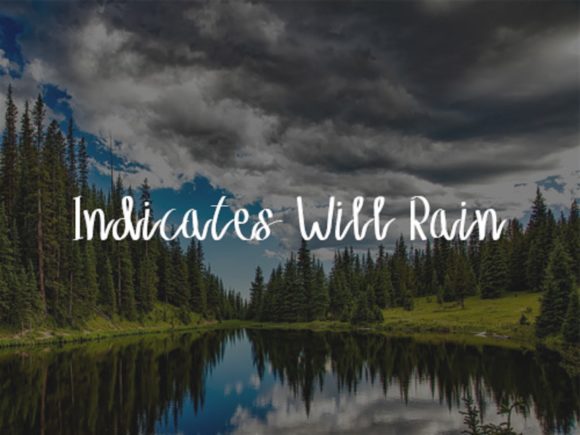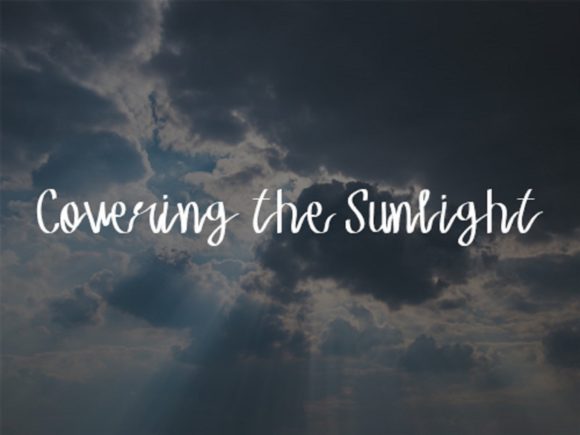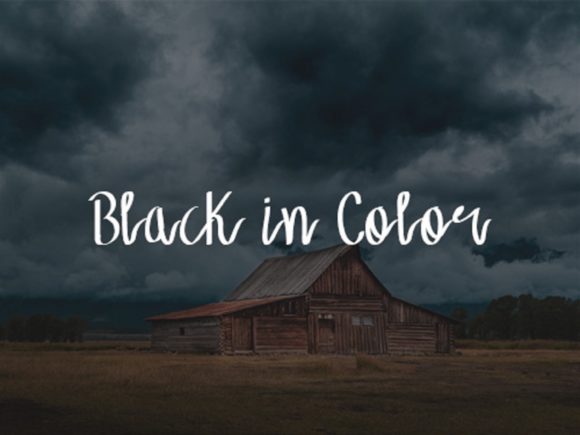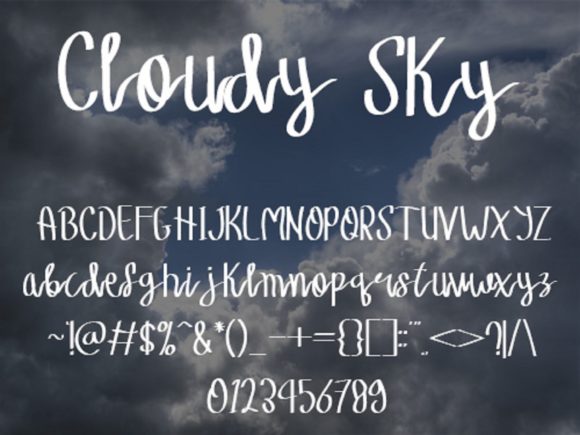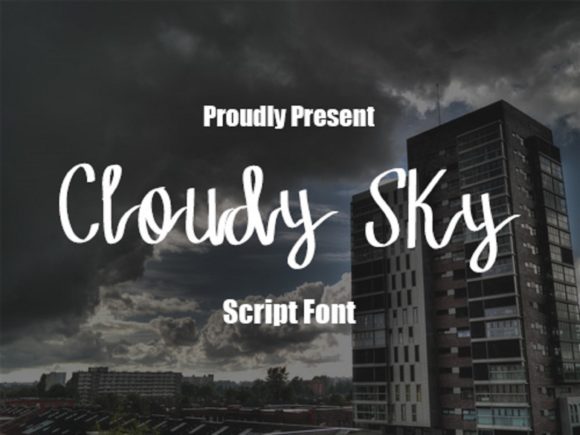
Introducing Cloudy Sky Font: The Friendly Handwritten Font to Elevate Your Designs
Are you tired of using the same old fonts in your designs? Look no further! We’re excited to introduce Cloudy Sky Font, a friendly handwritten font that’s sure to capture your heart and take your projects to new heights. In this article, we’ll dive into the world of Cloudy Sky Font, exploring its features, benefits, and uses, and why it’s a must-have for designers and crafters alike.
What is Cloudy Sky Font?
Cloudy Sky Font is a beautiful, handwritten font that’s designed to add a touch of warmth and personality to your designs. With its soft, rounded edges and flowing curves, this font is perfect for creating a friendly and approachable atmosphere in your projects. Whether you’re working on a logo, branding, packaging, or social media graphics, Cloudy Sky Font is sure to make your designs stand out.
Features of Cloudy Sky Font
So, what makes Cloudy Sky Font so special? Here are just a few of its key features:
• Handwritten with love: Cloudy Sky Font is carefully crafted with a handwritten touch, giving it a unique and personal feel.
• Clean and legible: Despite its handwritten nature, Cloudy Sky Font is incredibly clear and easy to read, making it perfect for body text and headings.
• Versatile: This font is suitable for a wide range of design projects, from digital graphics to print materials.
Benefits of Using Cloudy Sky Font
So, why should you choose Cloudy Sky Font for your designs? Here are just a few benefits:
• Adds a personal touch: Cloudy Sky Font brings a human touch to your designs, making them feel more approachable and relatable.
• Stand out from the crowd: With its unique and stylish design, Cloudy Sky Font helps your projects stand out in a crowded design landscape.
• Boosts brand personality: This font is perfect for brands that want to convey a friendly, approachable, and down-to-earth personality.
• Easy to pair: Cloudy Sky Font pairs well with a wide range of fonts, making it easy to create harmonious and visually appealing designs.
Uses of Cloudy Sky Font
Cloudy Sky Font is an incredibly versatile font that can be used in a wide range of design projects, including:
• Logos and branding: Create a memorable and friendly logo that reflects your brand’s personality.
• Social media graphics: Add a personal touch to your social media posts and stories with Cloudy Sky Font.
• Packaging design: Make your products stand out on store shelves with Cloudy Sky Font.
• Invitations and stationery: Create beautiful and personalized invitations, cards, and stationery with this font.
In conclusion, Cloudy Sky Font is a friendly handwritten font that’s sure to capture your heart and elevate your designs to new heights. With its unique features, benefits, and uses, this font is a must-have for designers and crafters alike. Whether you’re looking to add a personal touch to your designs, stand out from the crowd, or boost your brand personality, Cloudy Sky Font is the perfect choice. So why wait? Fall in love with Cloudy Sky Font and bring your projects to the highest levels!